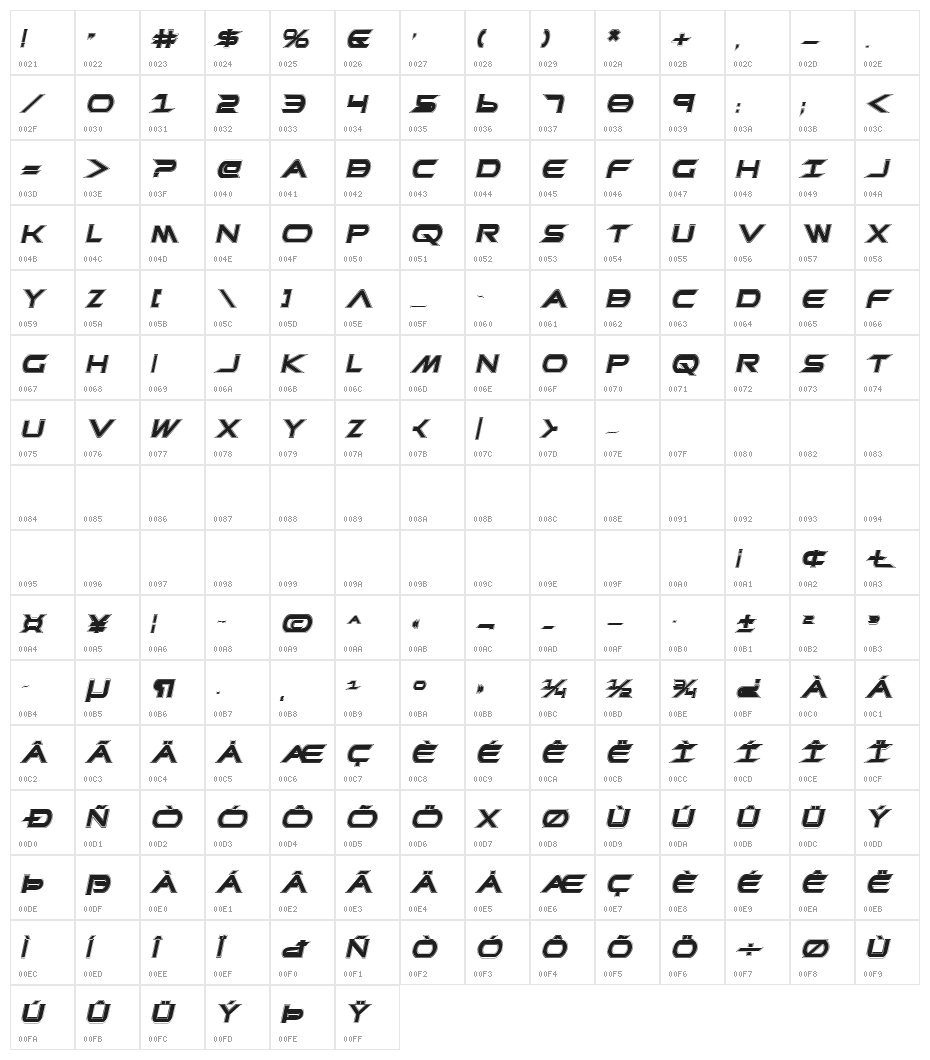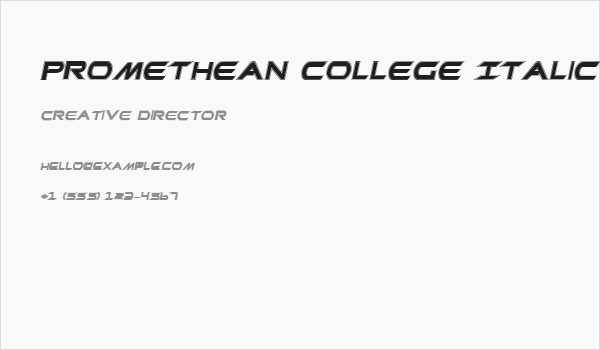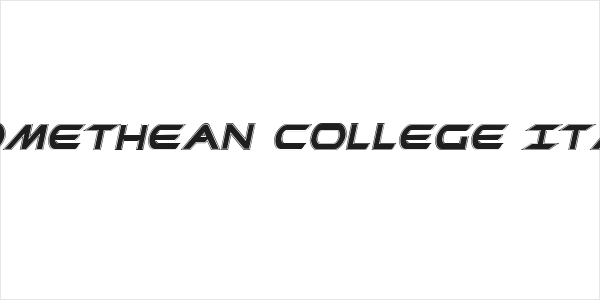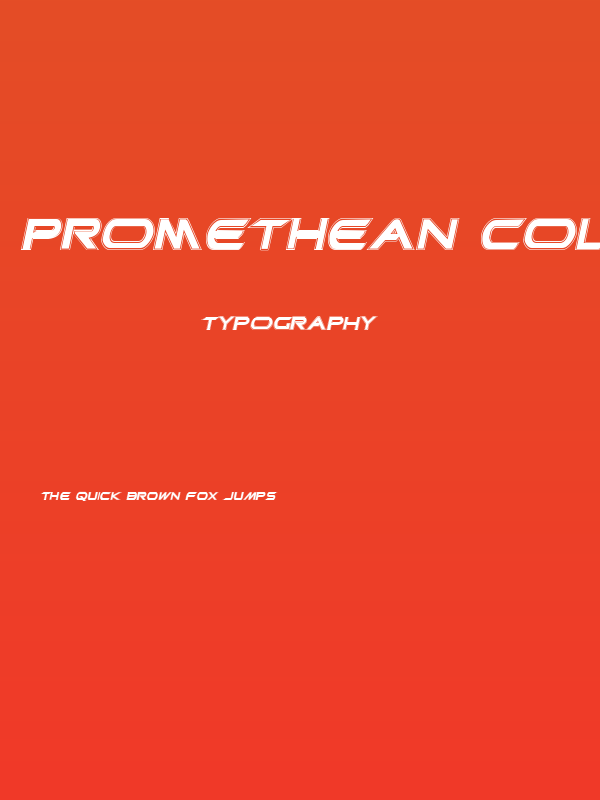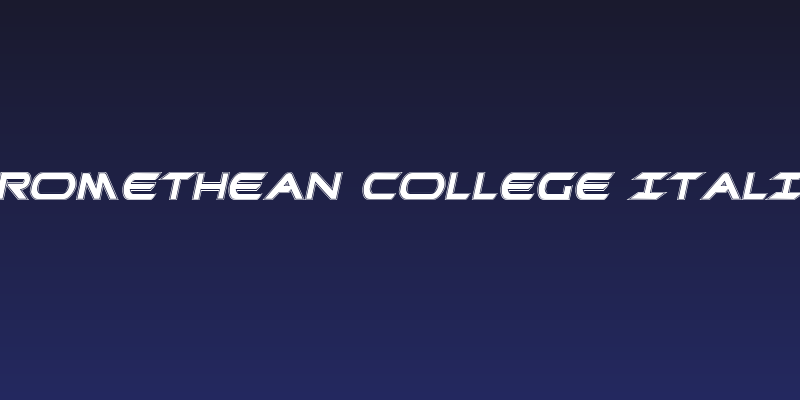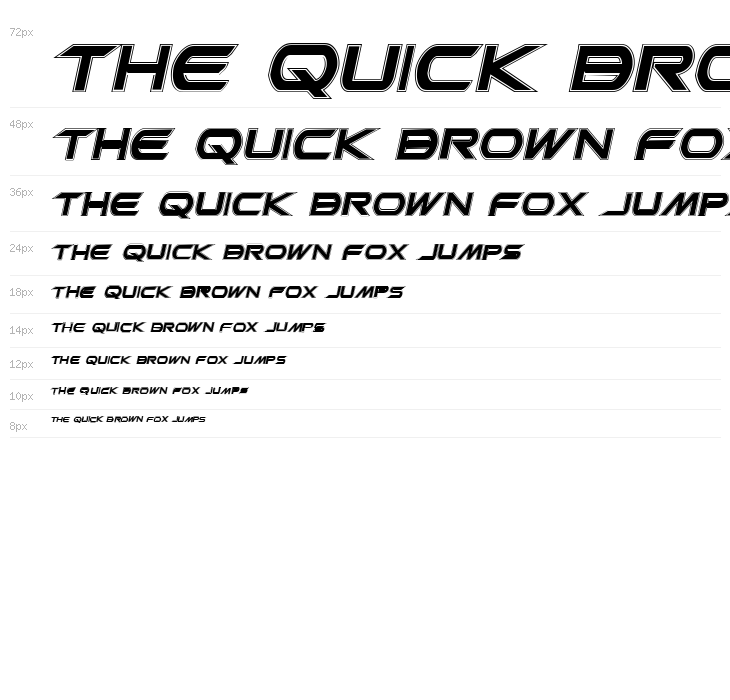
Promethean College Italic Font
Promethean College Italic Description
This font features a dynamic and futuristic design with sharp, angular edges and a distinct italic slant. The characters are bold and impactful, with a double-line effect that adds depth and dimension. The uppercase letters are particularly striking, with a strong presence that commands attention. The numbers and special characters maintain the same bold style, ensuring consistency throughout. This font is well-suited for projects that require a modern and edgy look, such as technology branding, sports team logos, or sci-fi themed designs.
| Use Case | Logos, Headlines |
| Proposed Projects | Ideal for technology branding, sports logos, and sci-fi themed designs. |